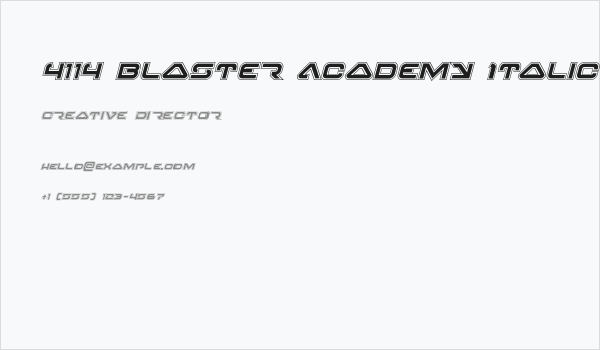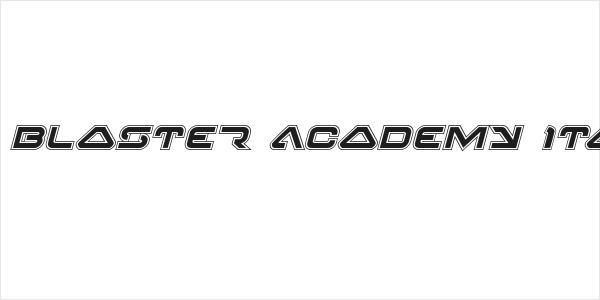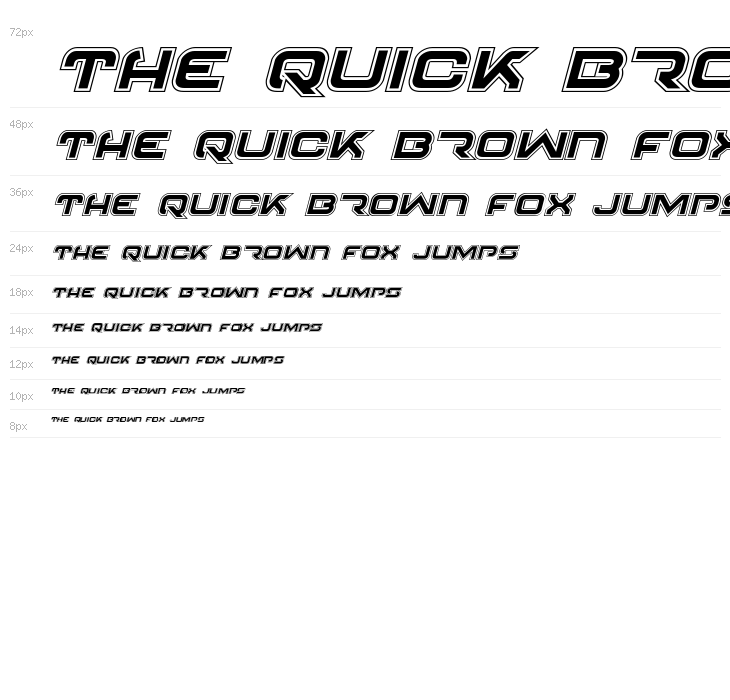
4114 Blaster Academy Italic Font
4114 Blaster Academy Italic Description
This font features a bold and dynamic style with a futuristic flair, characterized by its italicized and angular letterforms. Each character is outlined with a double-layered effect, creating a sense of depth and movement. The uppercase and lowercase letters maintain a consistent geometric structure, while the numerals and special characters follow the same design principles. The font's unique appearance makes it stand out, offering a modern and edgy aesthetic that is both eye-catching and versatile.
| Overall Style | Futuristic, Modern |
| Proposed Projects | Ideal for sci-fi themed projects, video game titles, tech branding, and futuristic posters. |